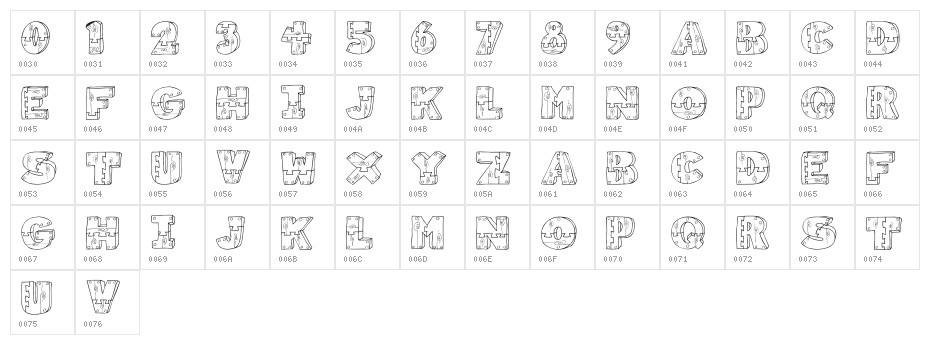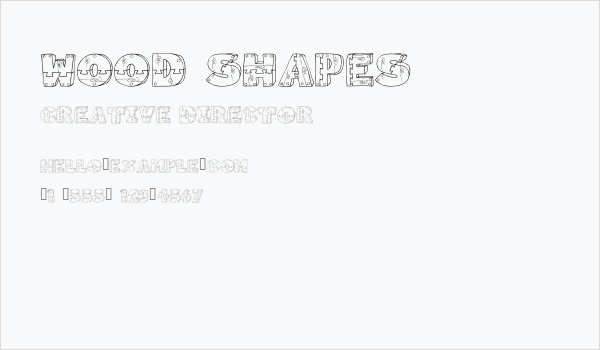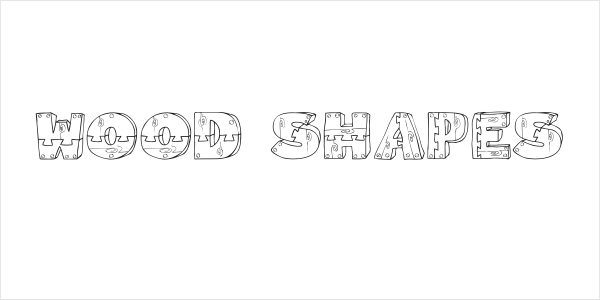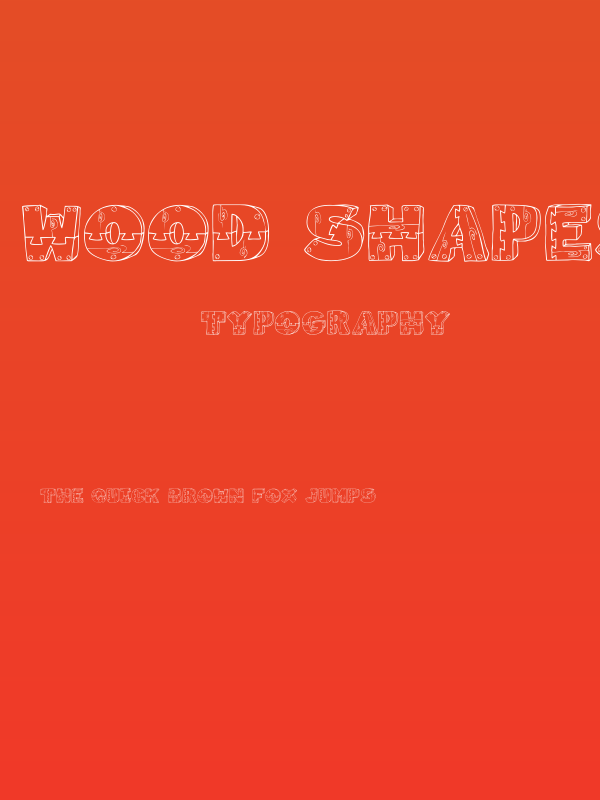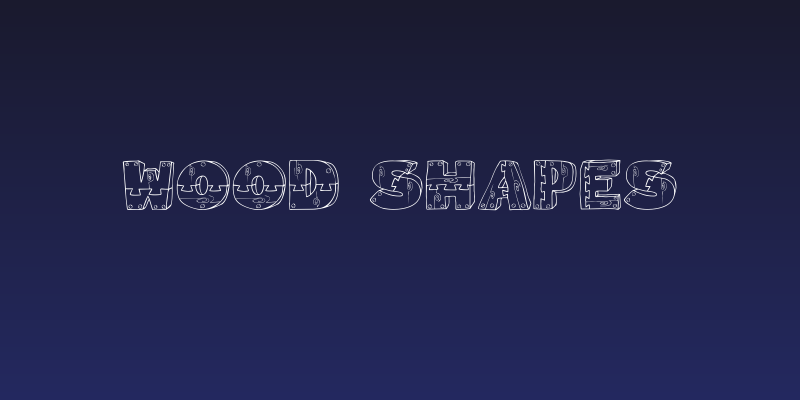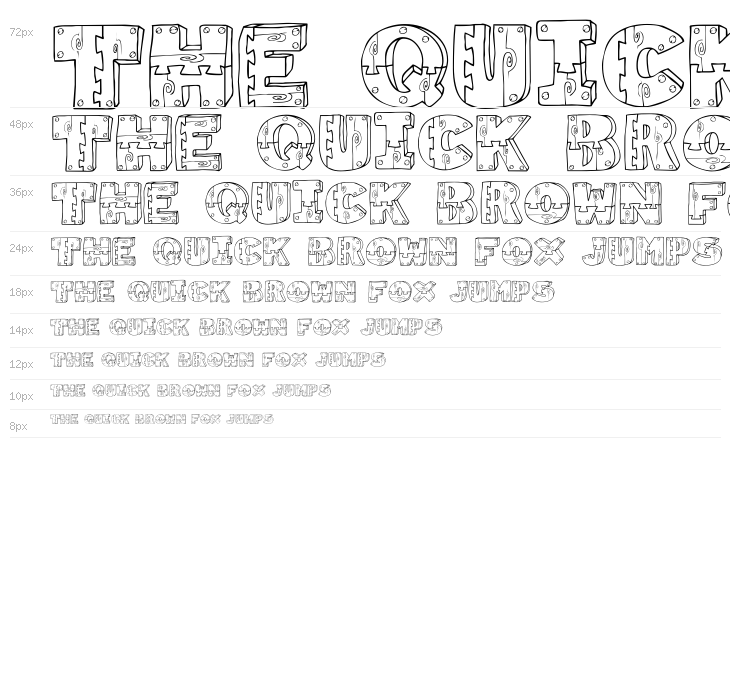
Wood Shapes Font
Wood Shapes Description
This font features a playful and decorative style, reminiscent of wooden textures and shapes. Each character is filled with intricate patterns that mimic the grain and knots of wood, giving it a unique and rustic appearance. The bold, blocky letters are designed with a sense of depth and dimension, making them stand out prominently. The font includes both uppercase and lowercase letters, numerals, and a selection of special characters. Its distinct design makes it ideal for projects that require a touch of creativity and nature-inspired aesthetics.
| Proposed Projects | Ideal for children's books, nature-themed posters, craft projects, and playful branding. |